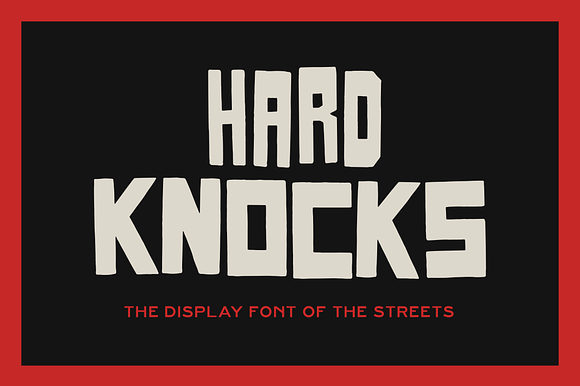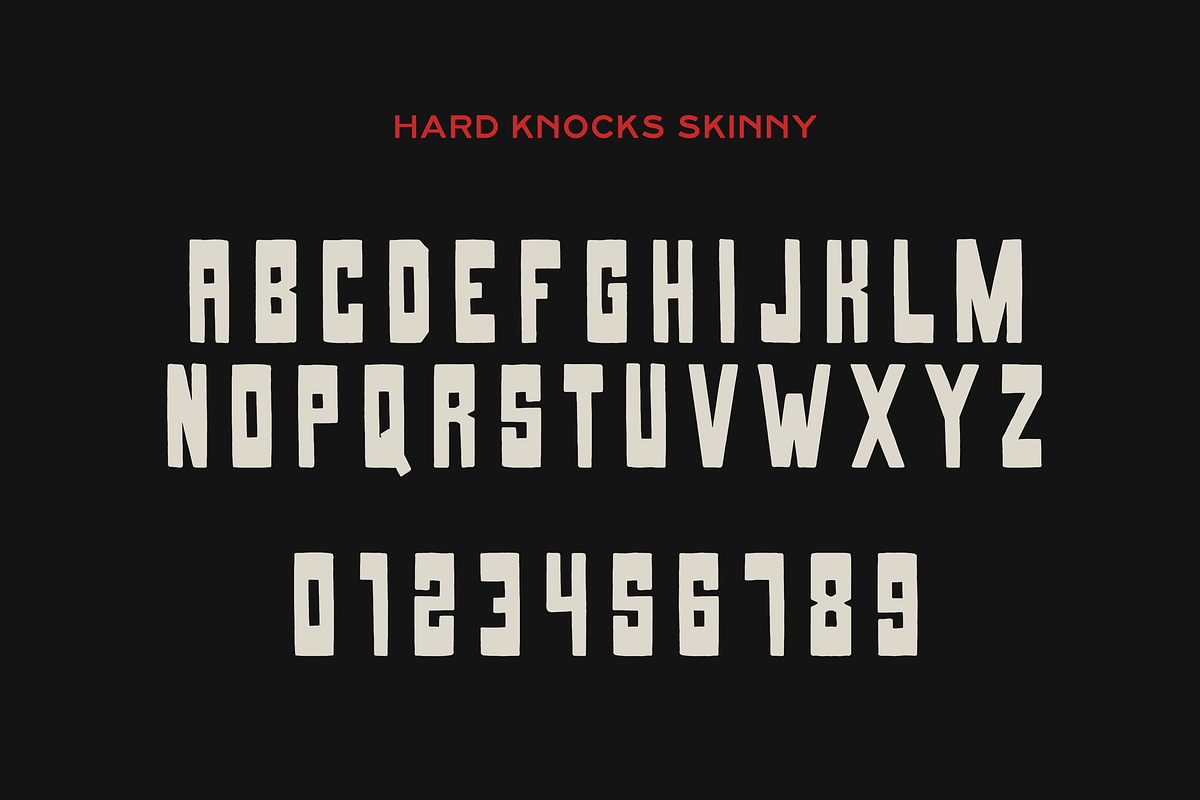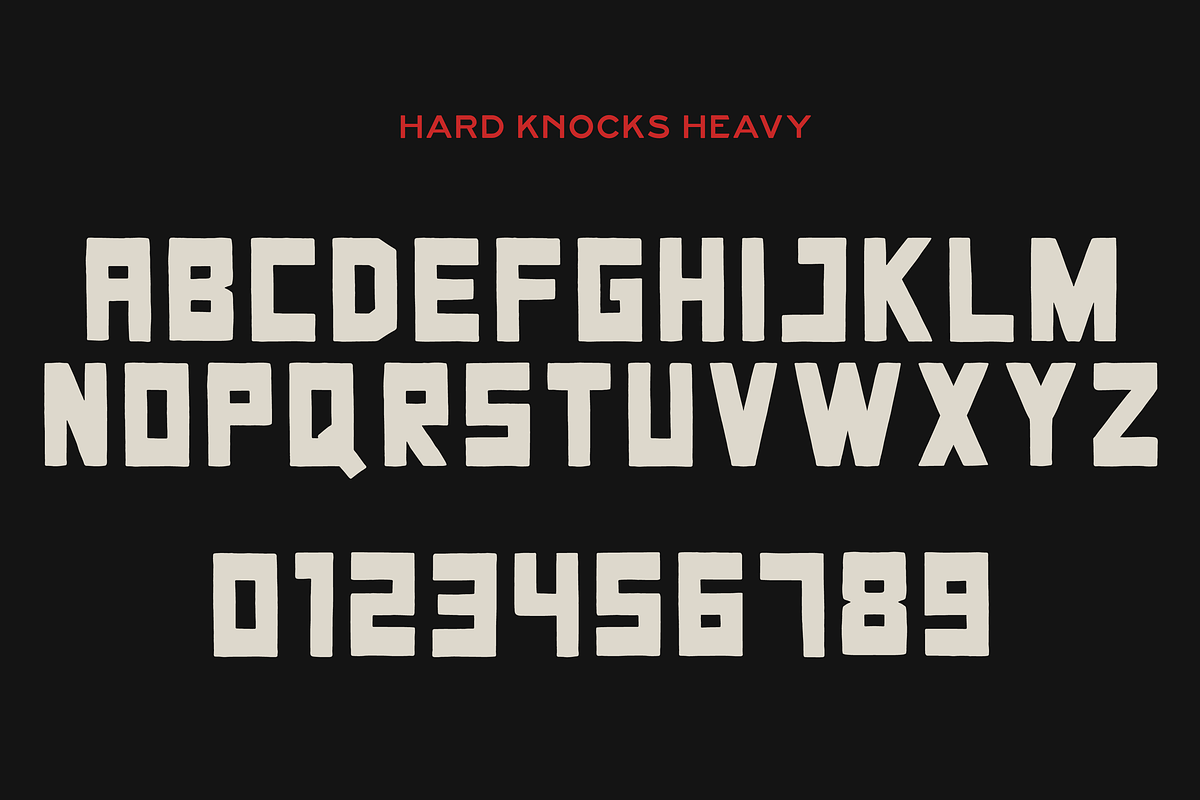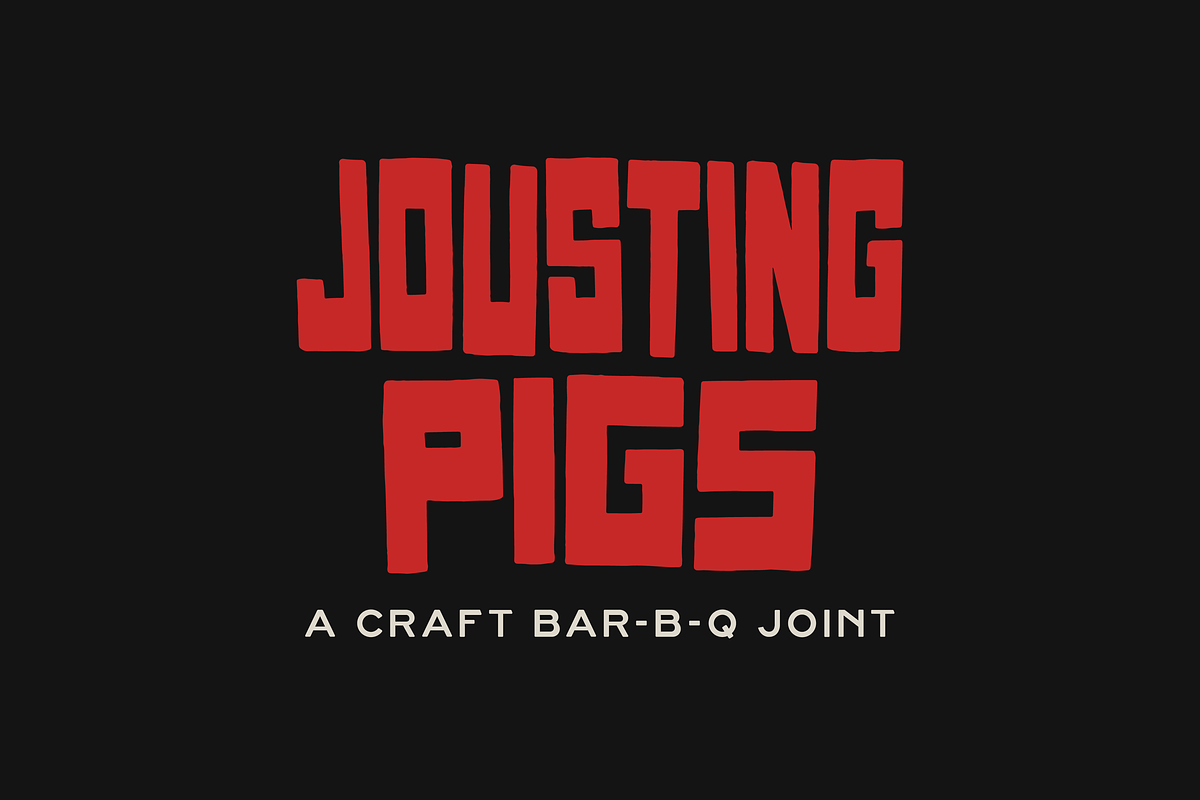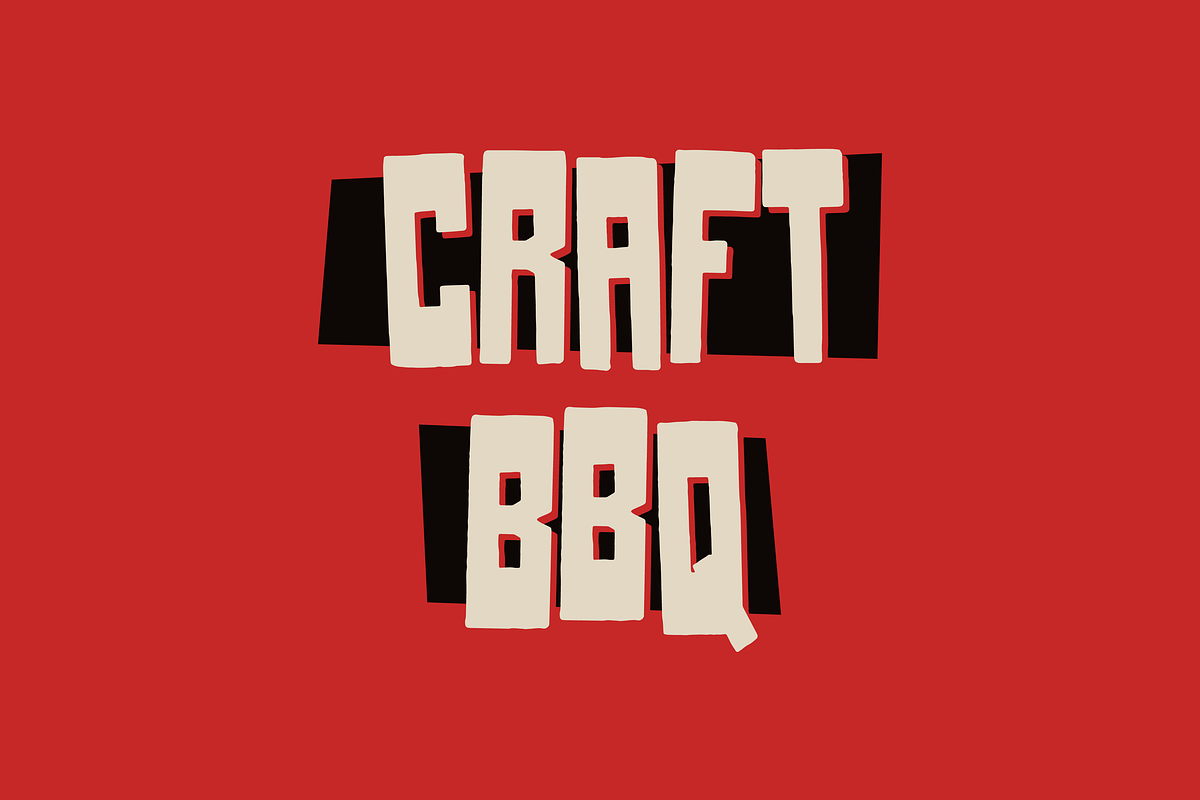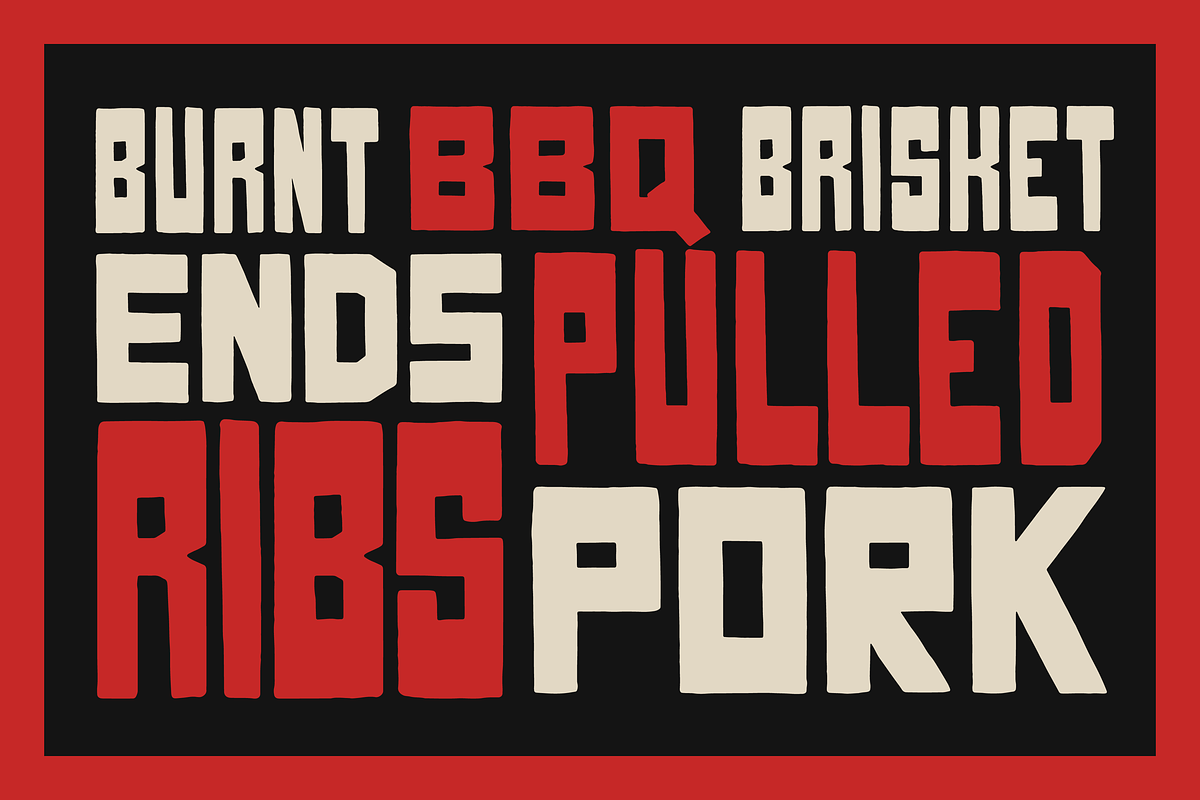
HARD KNOCKS — A Streets Display Font
HARD KNOCKS — The Display Font of the Streets
Hard Knocks is a typeface built for impact. The Skinny style is built on heavy tops and bottoms with skinny verticle lines. The Heavy style takes the same structure with a beefy foundation. This font is perfect for Logos, Headers, Apparel, and much more.
2 Hand-Drawn Styles: Skinny & Heavy